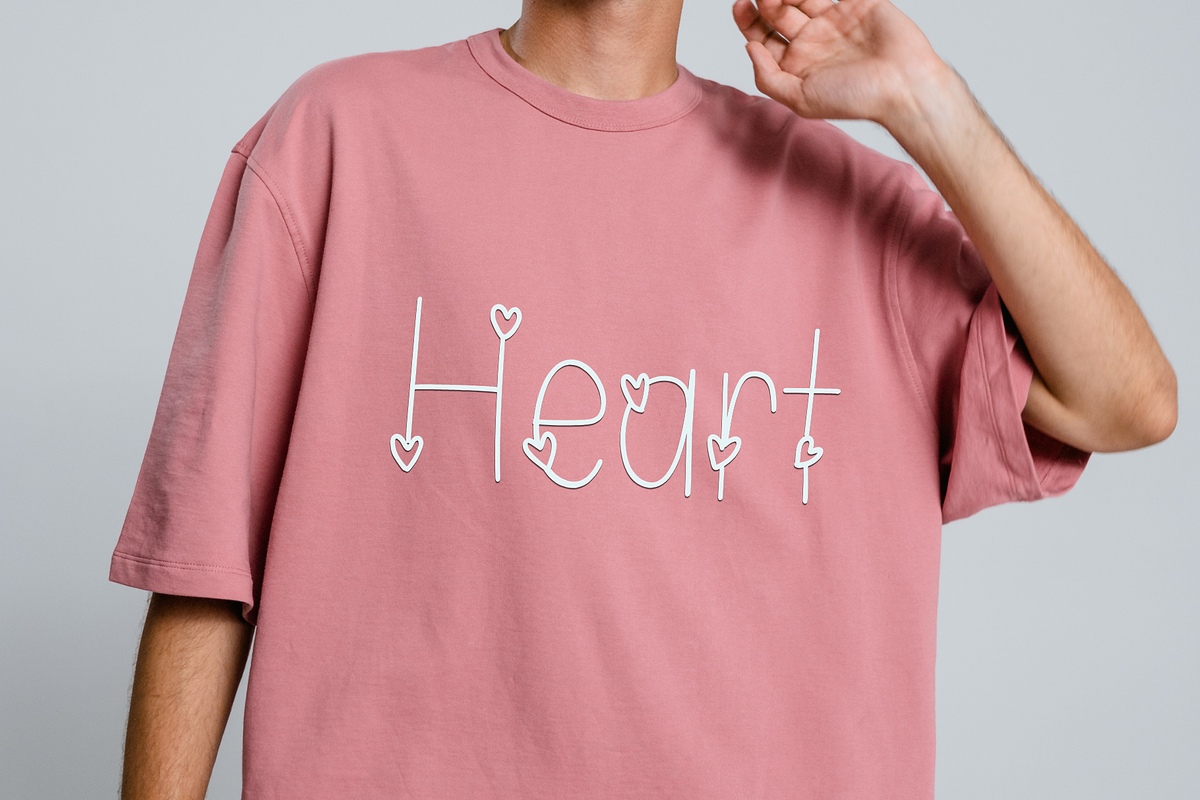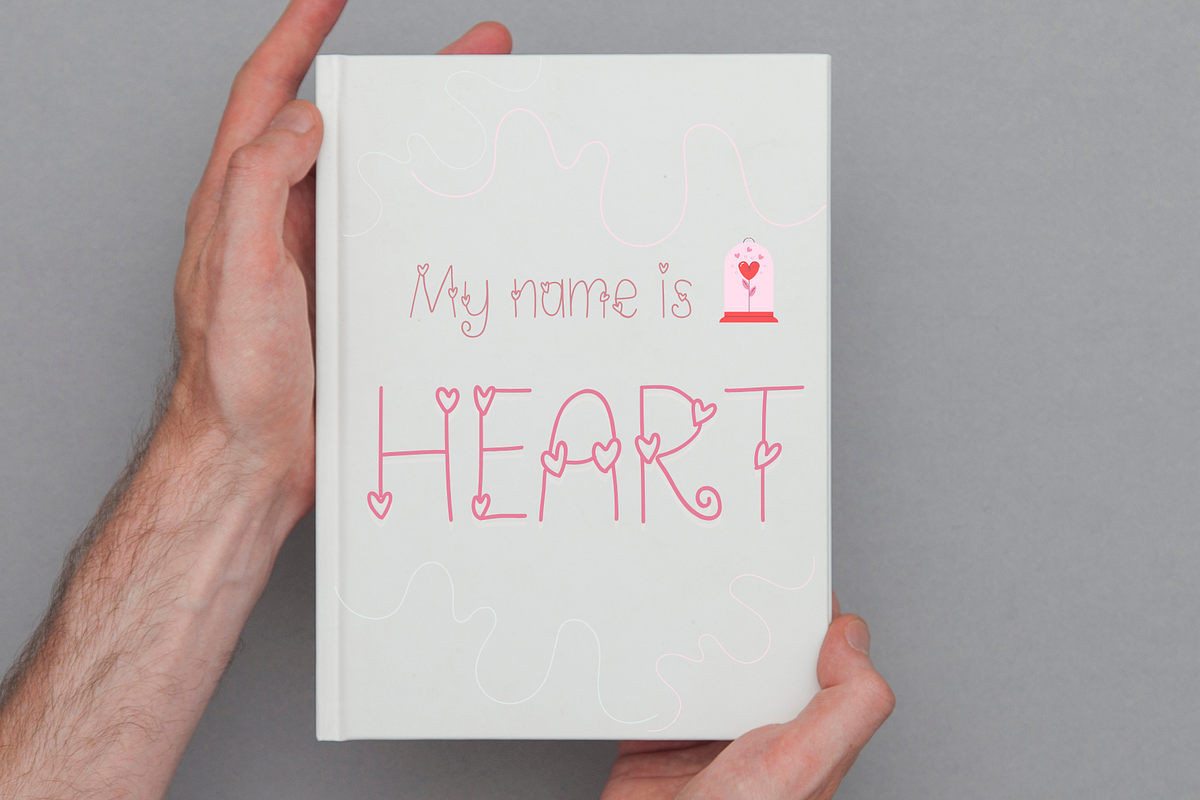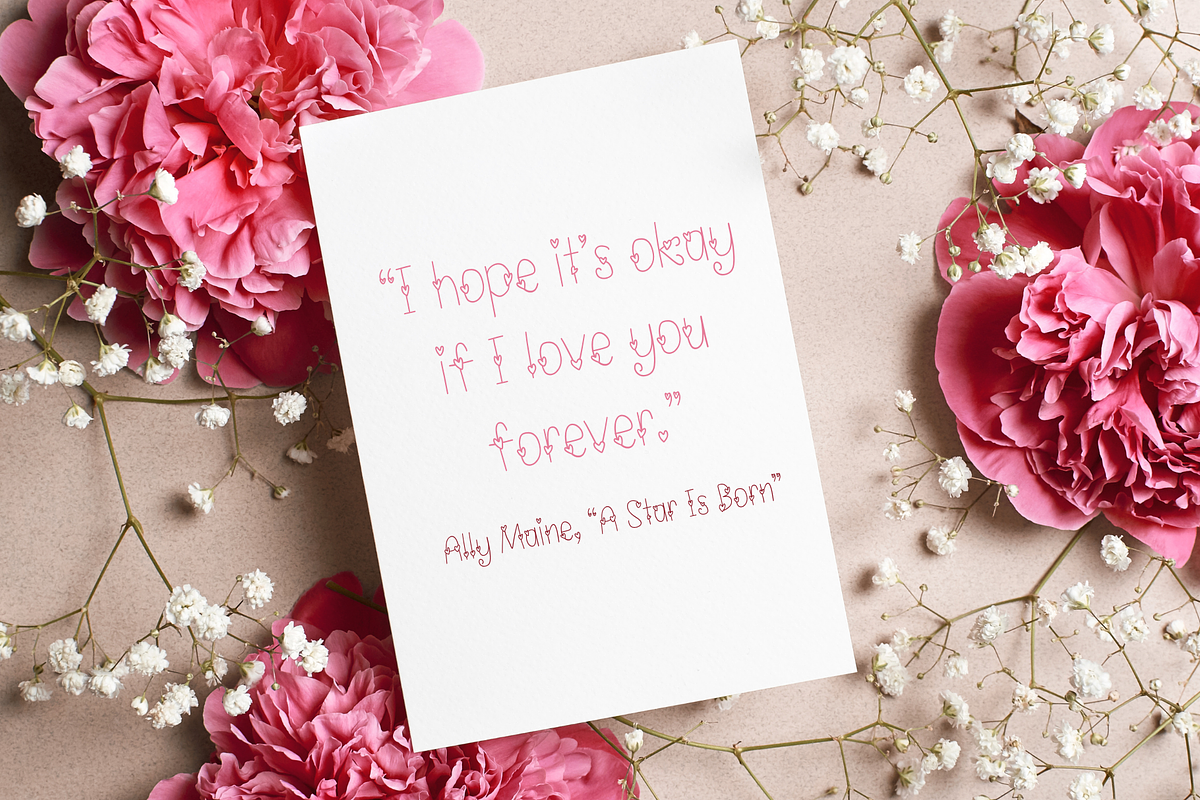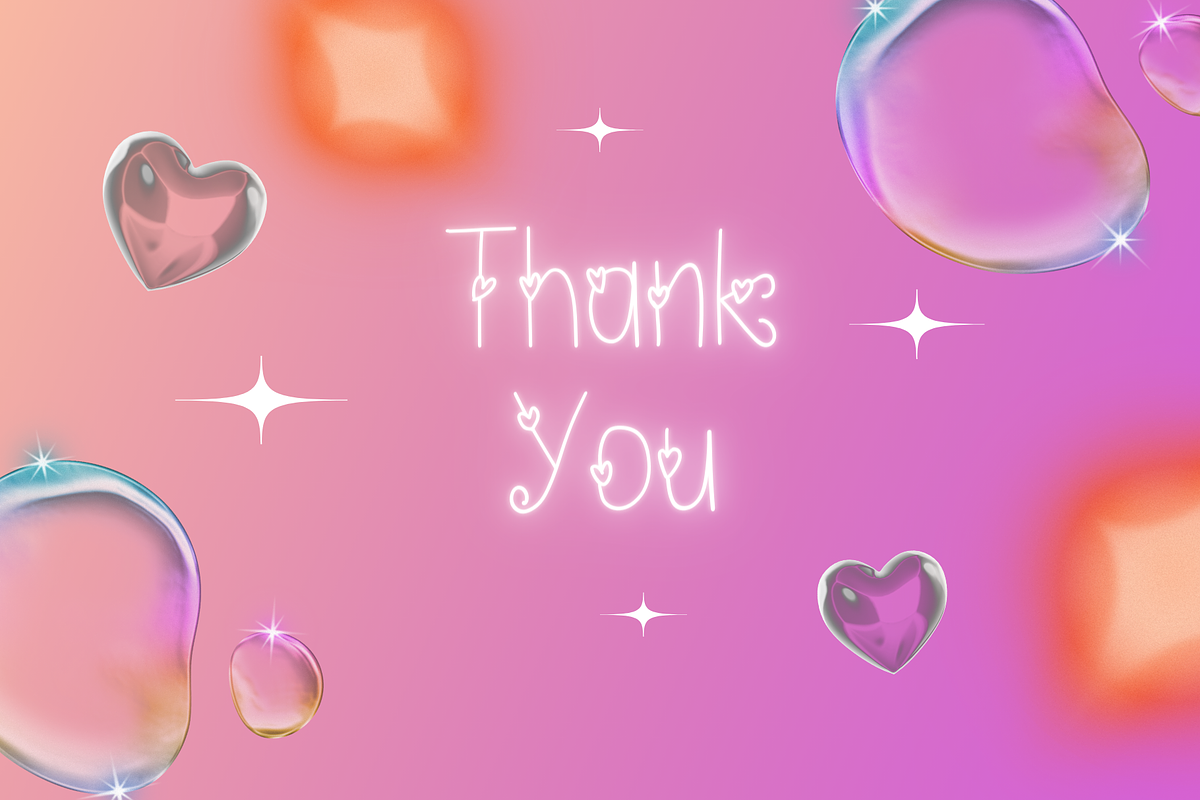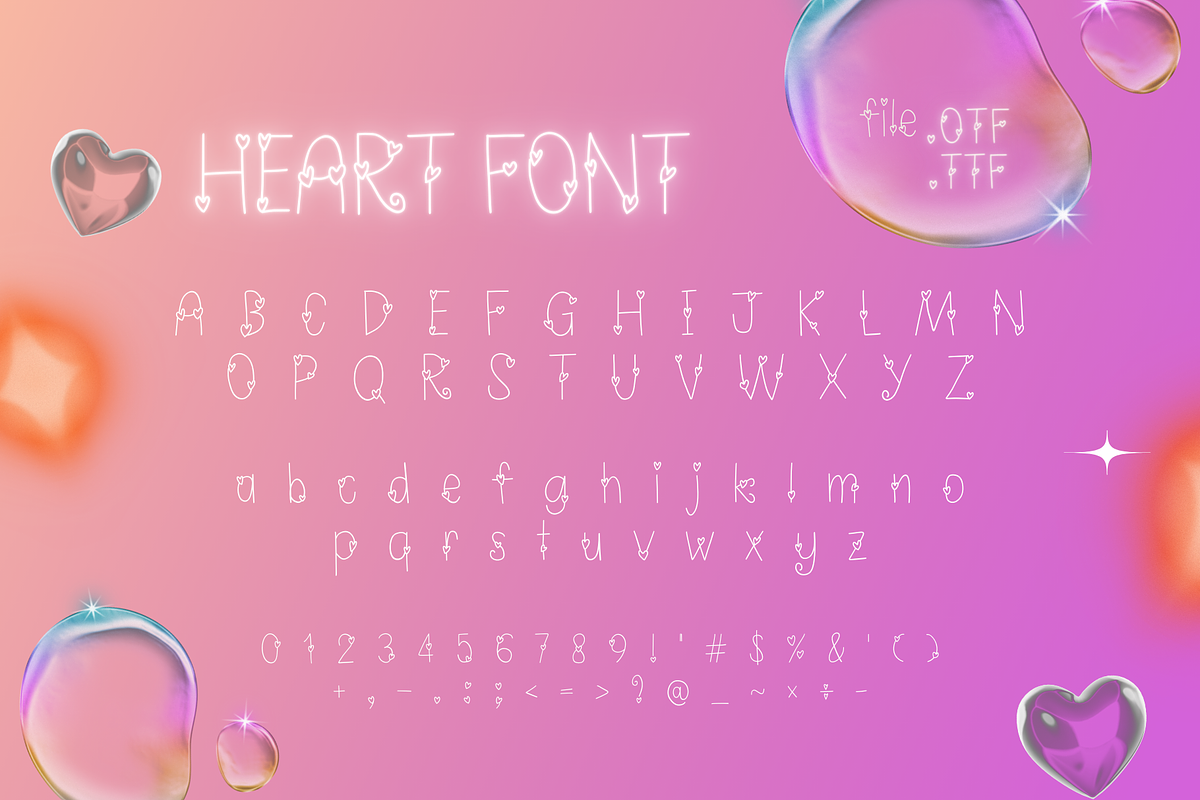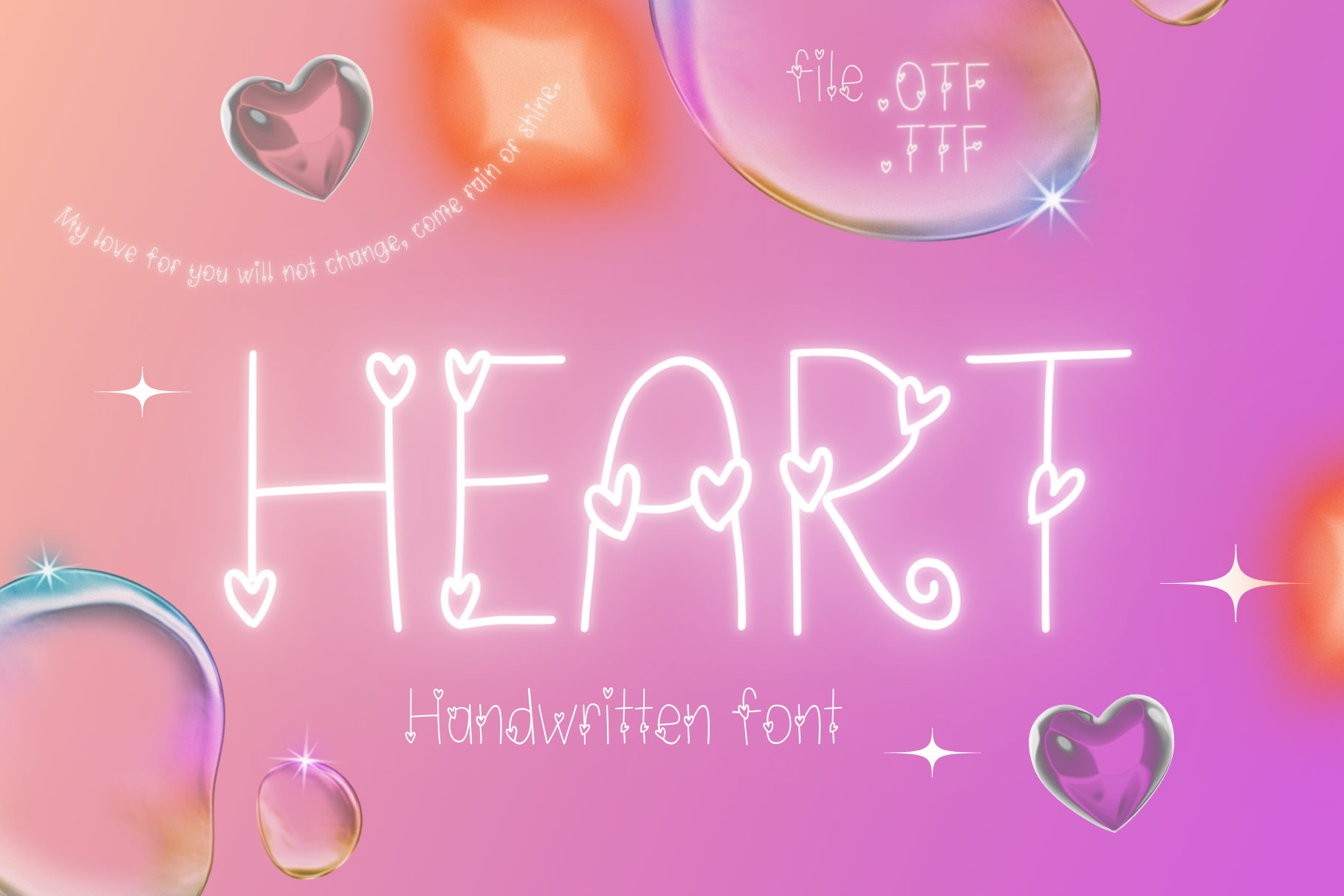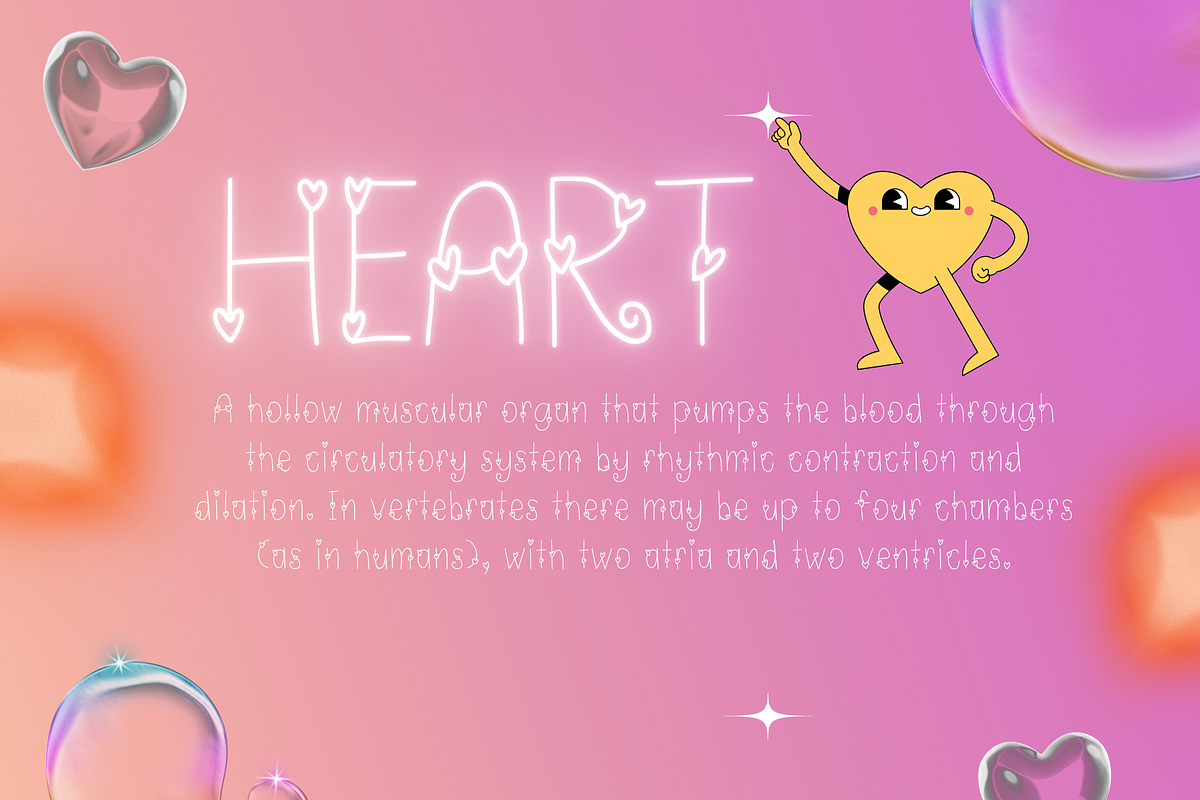
Heart | Romantic Handwritten Font
Bring warmth and whimsy to your designs with Sweetheart, a unique handwritten outline font designed for charming and heartfelt projects.
Sweetheart combines a playful, spontaneous handwritten feel with a delicate outline style. Featuring subtle heart details woven into the letterforms, this font is perfect for adding a touch of romance and sincerity to any creation. Its distinct, bubbly aesthetic makes it a standout choice for display text, headlines, and invitations.
Ideal For:
- Valentine’s Day and Wedding Stationery: Create stunning invitations, save-the-dates, and greeting cards.
- Branding and Packaging: Perfect for businesses focused on sweets, romance, or charming aesthetics.
- Social Media and Quotes: Enhance Instagram posts, Pinterest graphics, and inspiring quotes.
- DIY & Crafting: Ideal for personalized gifts, sublimation projects, and printables.
- Unique handwritten outline style
- Romantic and charming aesthetic
- Optimized for display and headline use